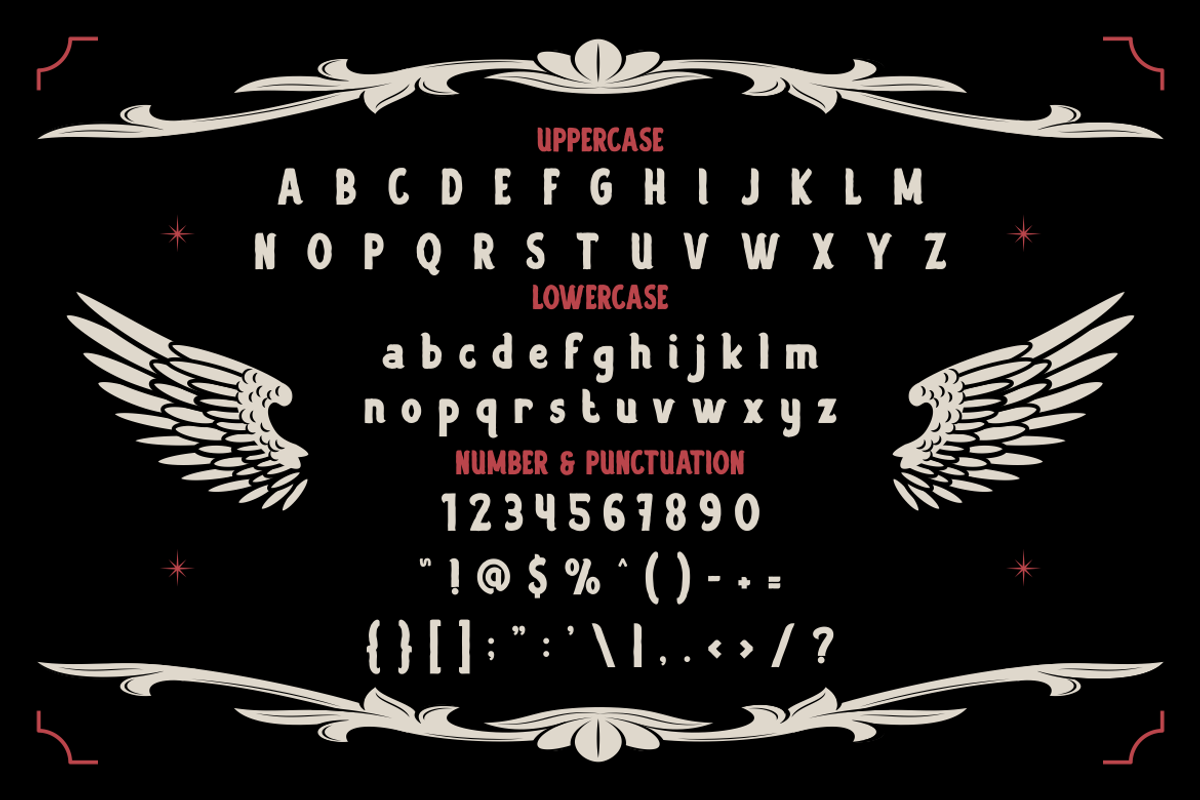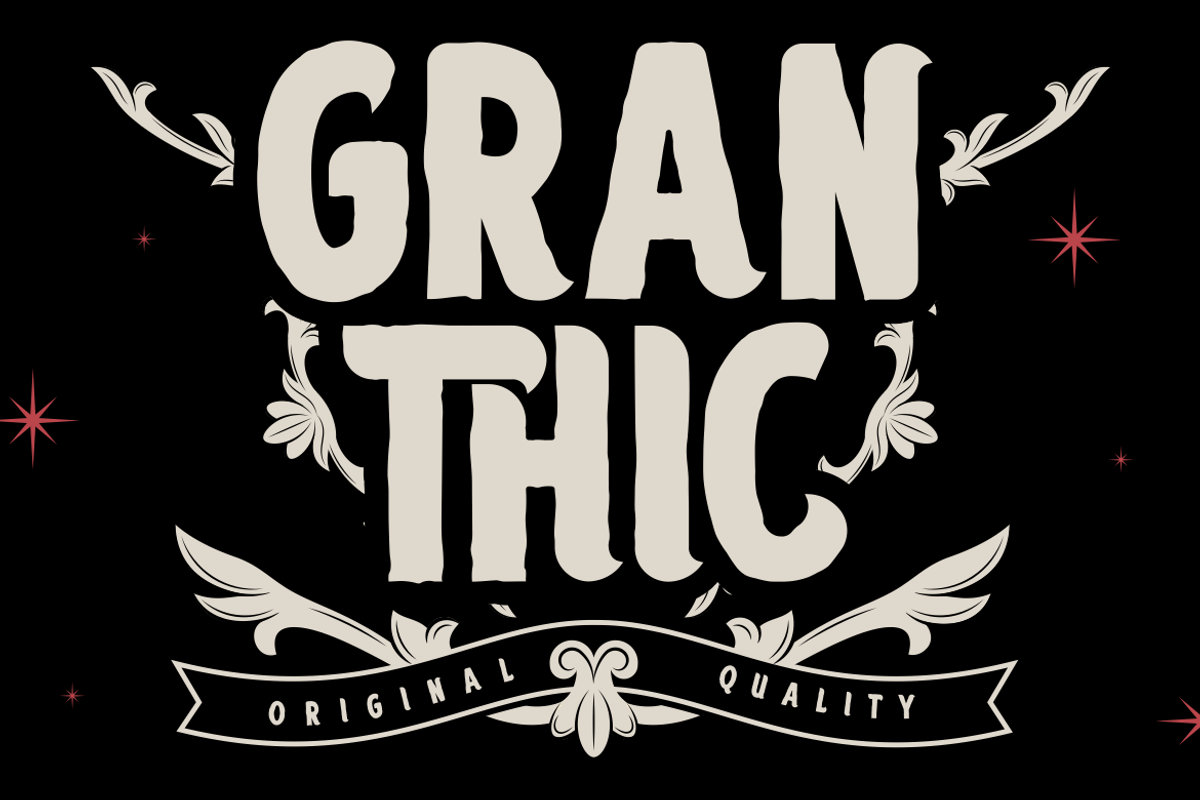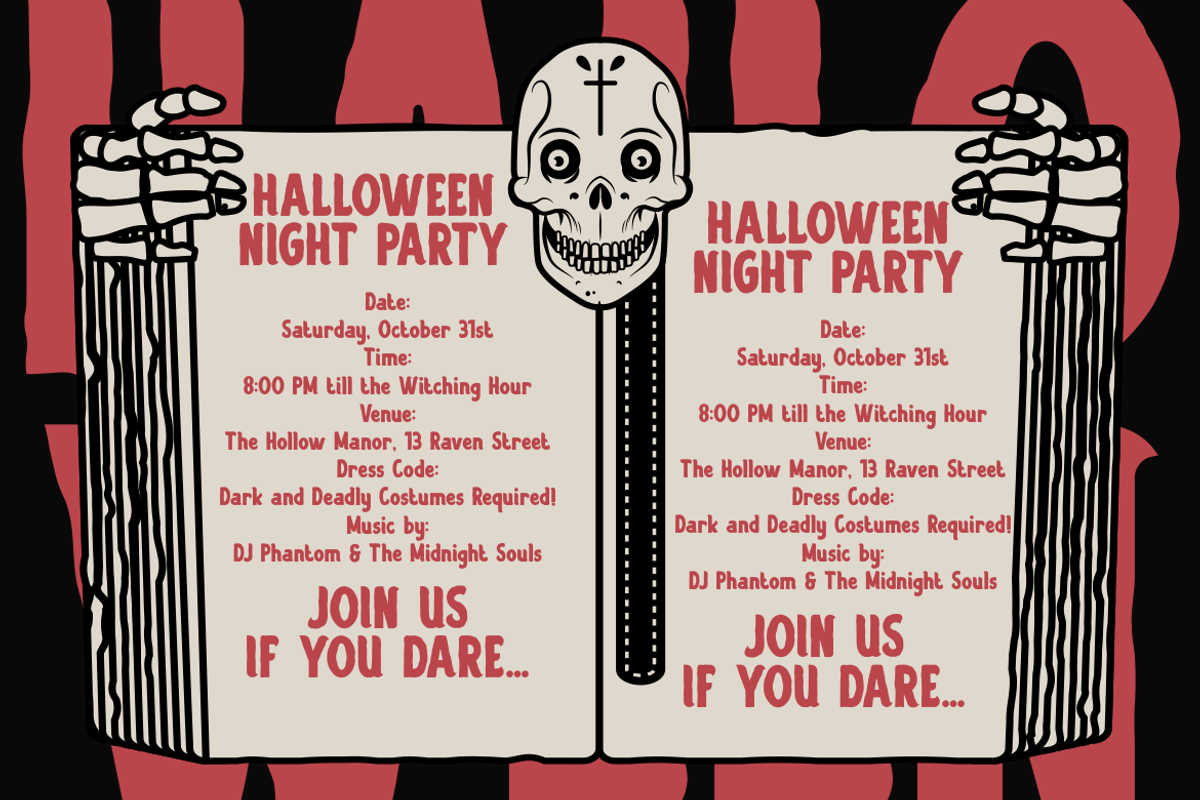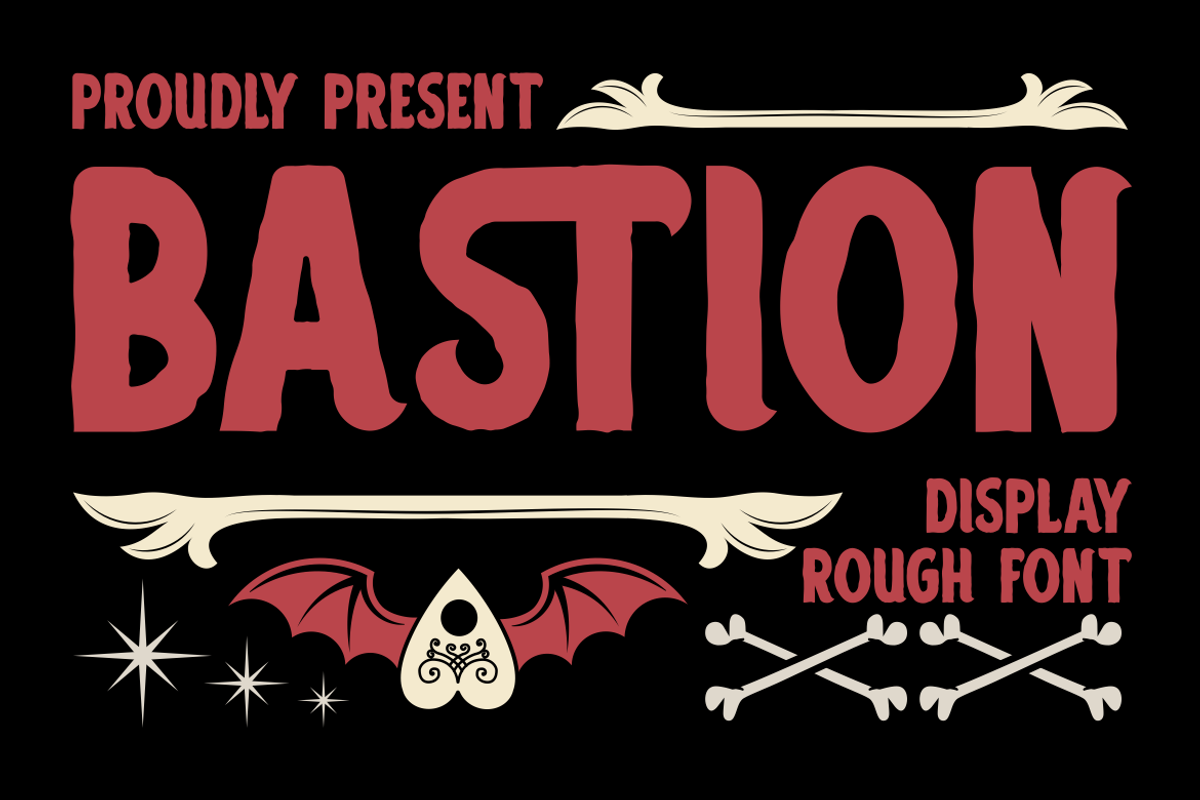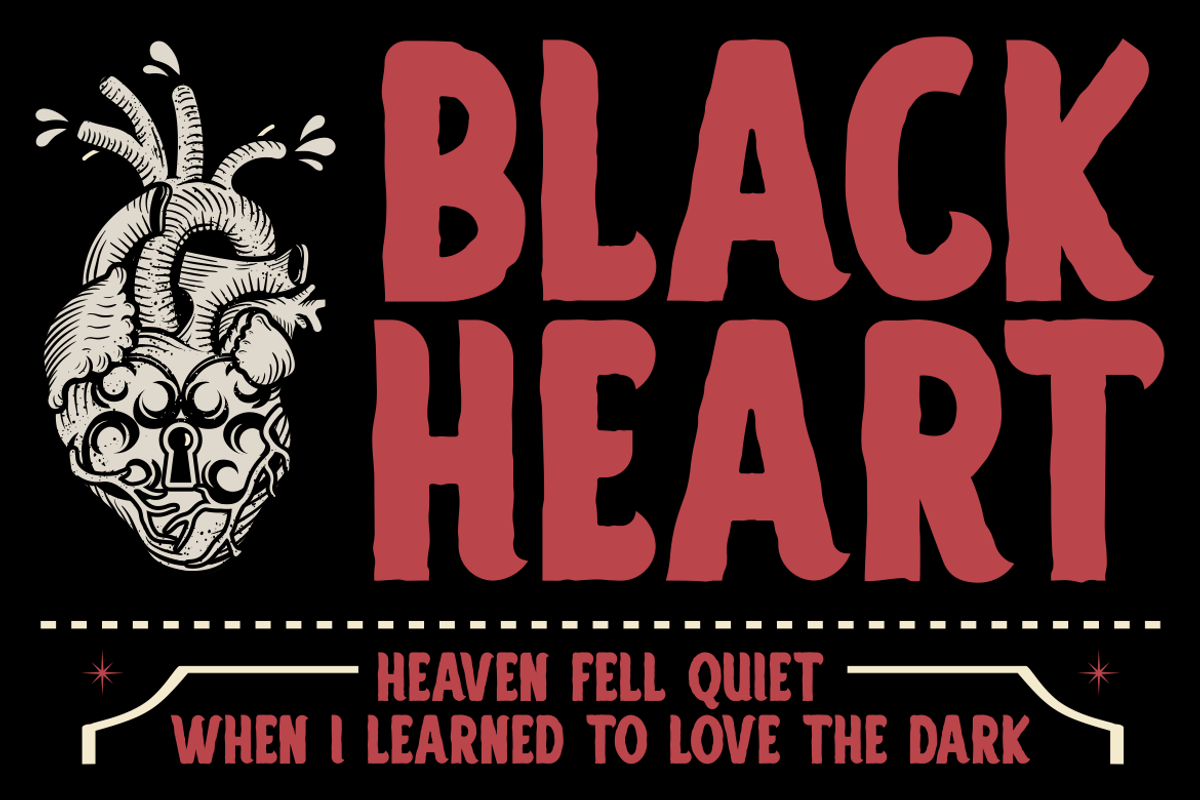
Bastion Serif Bold Font
Bastion Serif Bold Font is a powerful display typeface that blends vintage character with rugged handmade charm. Each letter features bold, uneven strokes and organic edges, giving the type a tactile, hand-carved texture. Its proportions are tall and chunky, with thick stems and subtle irregularities that add a sense of authenticity and personality. The font’s rough surface enhances its visual strength, making it feel sturdy yet artistic. Bastion Serif Bold Font is designed to stand out — its bold weight and natural imperfections make it perfect for impactful, expressive design projects that need to command attention with style.
This typeface works beautifully for logo design, posters, packaging, branding, film titles, and editorial layouts that require a bold vintage look. It also fits perfectly with Halloween themes, adventure posters, retro merchandise, or craft product labels that value authenticity and strong visual storytelling. The bold and textured appearance gives each composition a timeless handcrafted quality. Bastion Serif Bold Font brings a nostalgic yet powerful tone to your work — a typeface that celebrates grit, boldness, and individuality in every letterform.